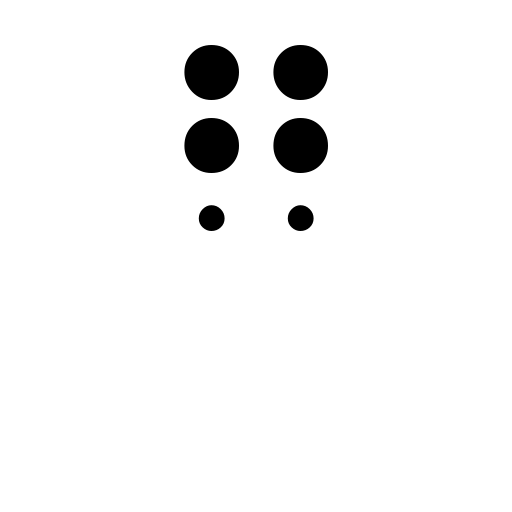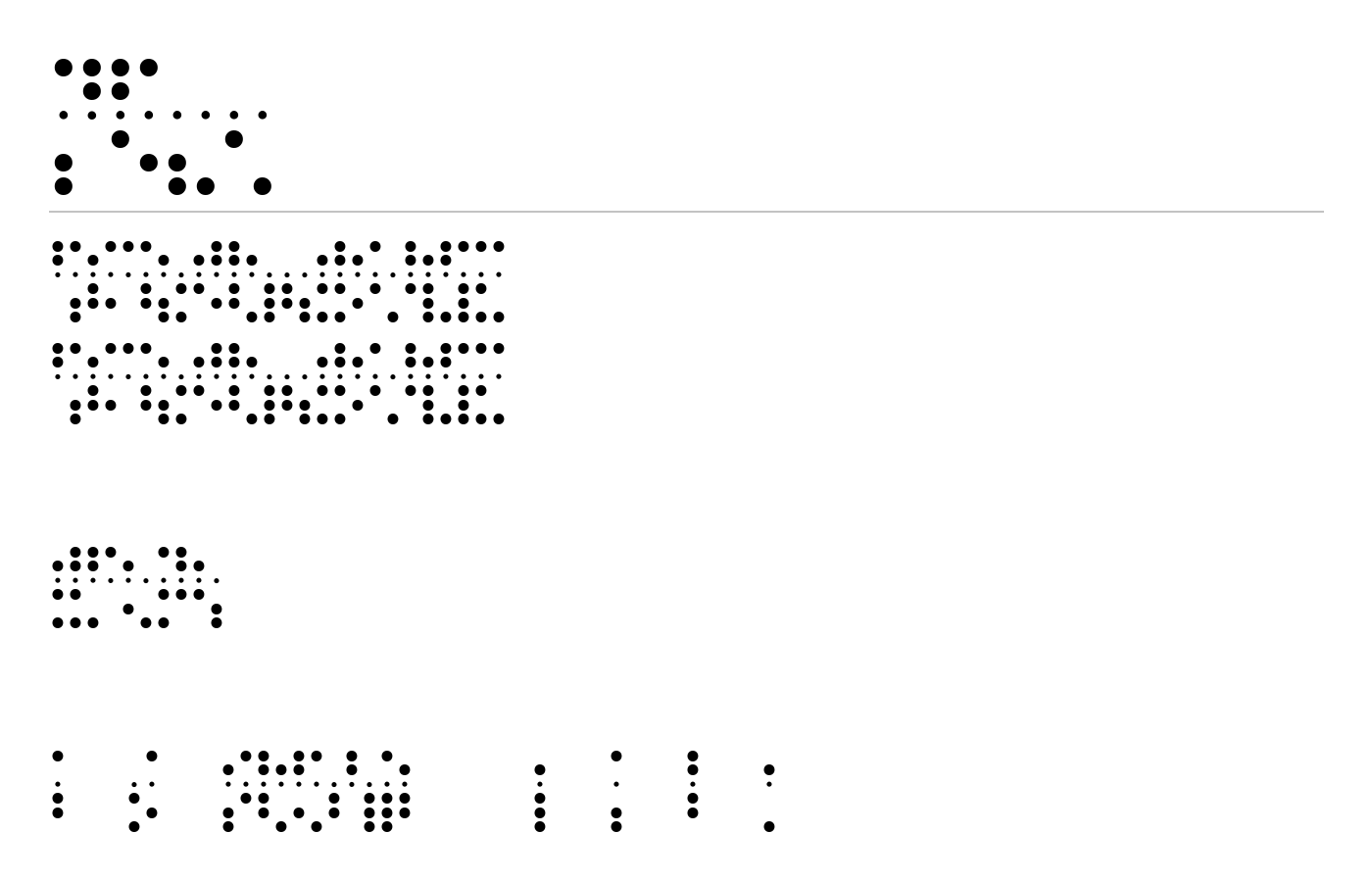
Baudot 5 is a highly distinctive dot-matrix style font that mimics the look of digital or printed Braille and early telegraph codes. Its geometric, grid-based structure with evenly spaced circular dots creates a modern, tech-inspired aesthetic that feels both precise and experimental. Ideal for futuristic branding, tech interfaces, or creative editorial projects, Baudot 5 adds a unique coded visual language that grabs attention while conveying a sense of innovation and mystery.
Baudot 5 Font
About Baudot 5 Font
| Font family | Baudot 5 Font |